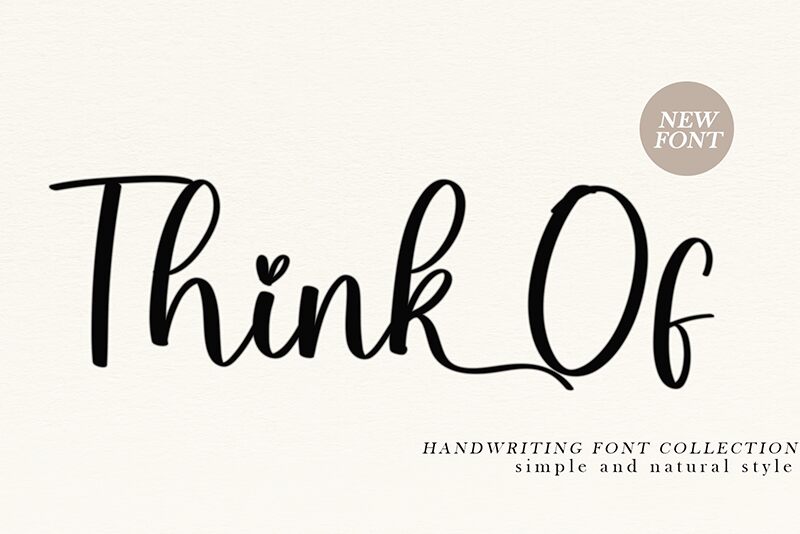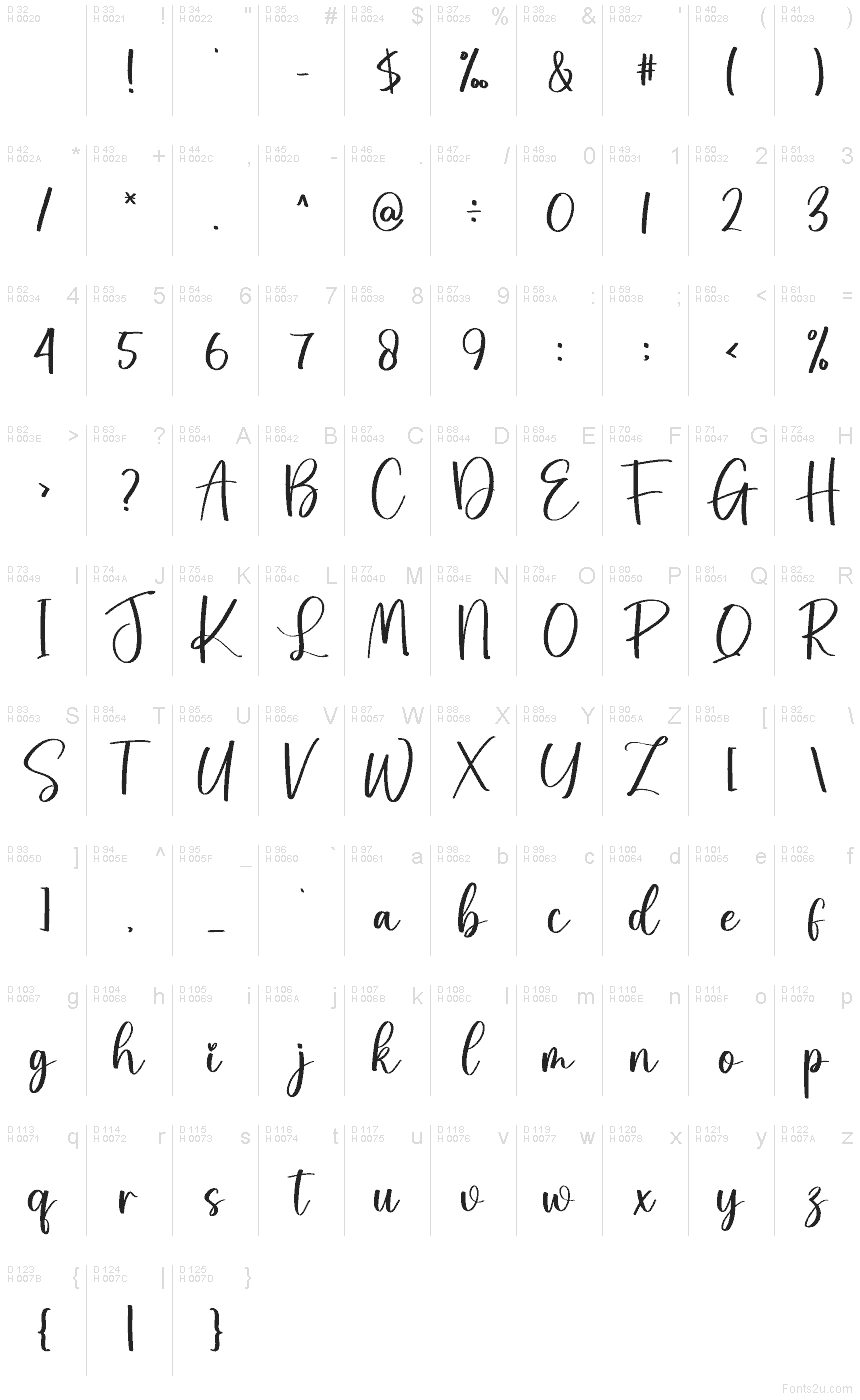
Think Of
Think Of font by creatype designer is a free handwritten typeface that turns every word into a soft, ink-brushed note. Tall, looping letters sway with a natural hand movement, while the thick–thin strokes feel like they were written with a favorite brush pen on smooth paper. Subtle heart-inspired details and gentle curves give it a romantic, personal touch that feels warm rather than sugary, making it easy to use in real-world projects.
Using Think Of, your designs instantly feel more intimate—great for wedding invitations, save-the-dates, love notes, boutique logos, packaging, quote posts, and handmade product labels. This free font holds up beautifully at larger sizes where the curves and texture can really breathe. Pair it with a clean, simple sans serif for body text so the script can stay in the spotlight without overwhelming your layout.